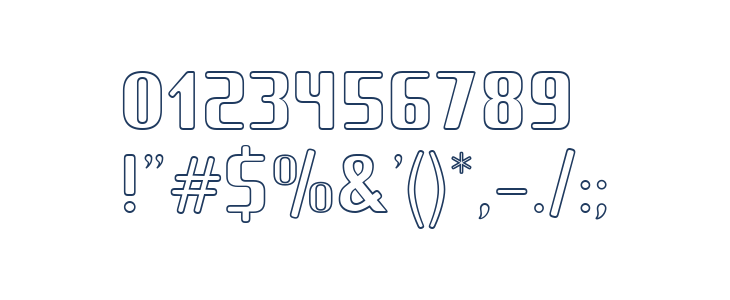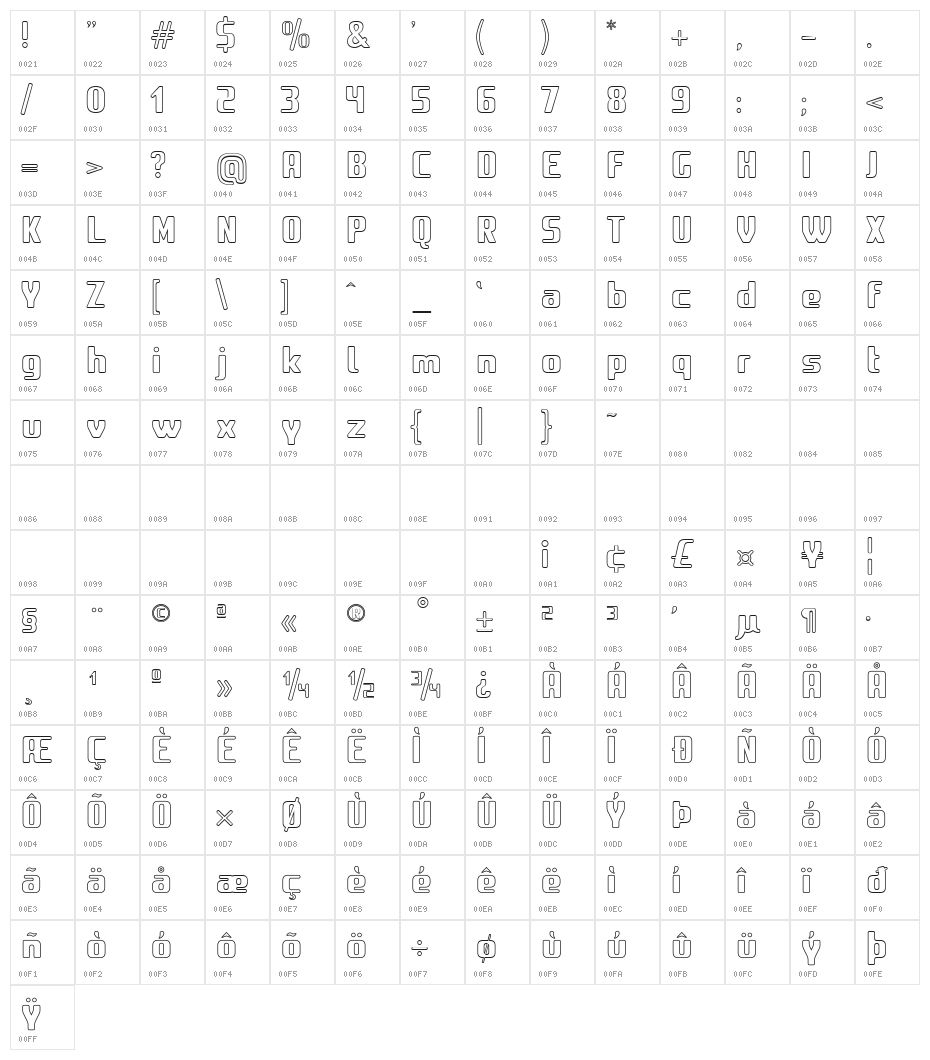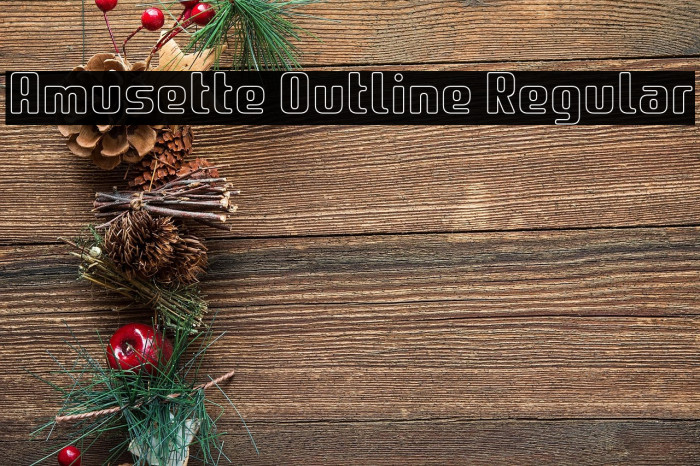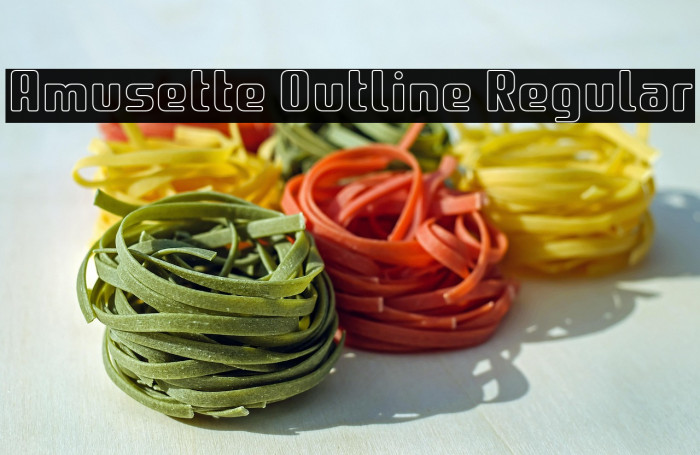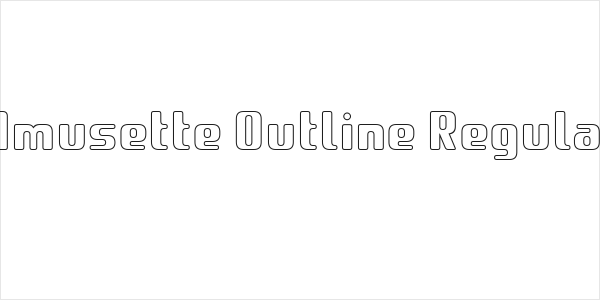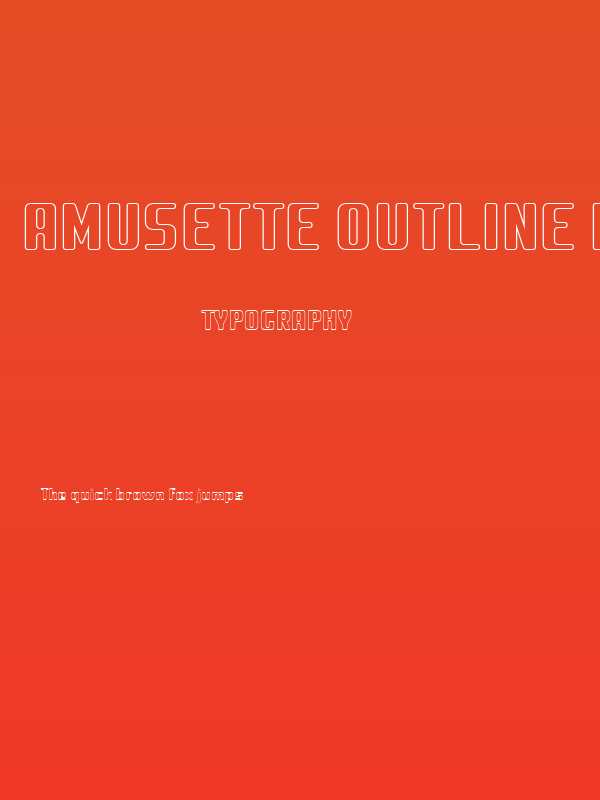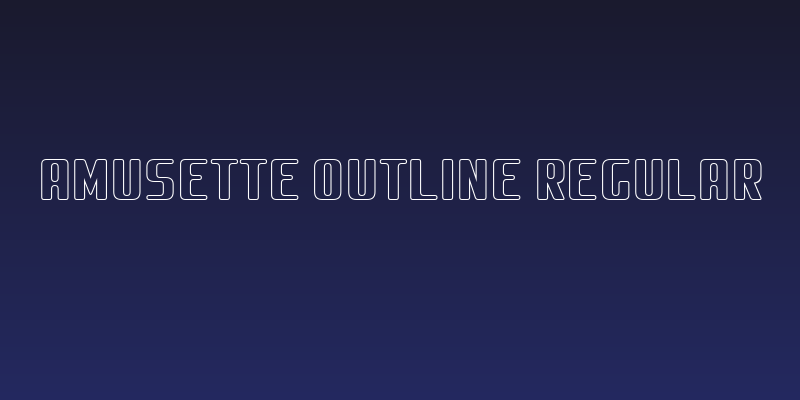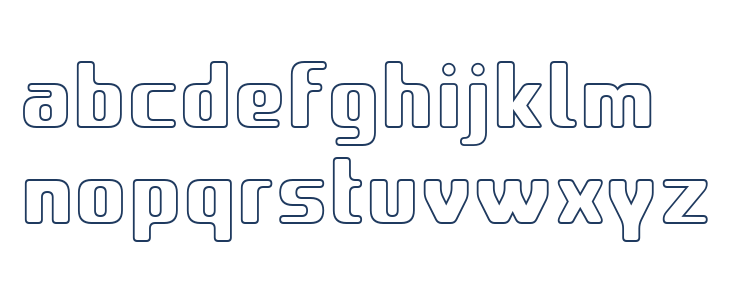
Amusette Outline Regular Font
Amusette Outline Regular Description
This font features a playful and modern outline style, characterized by its clean and geometric shapes. The uppercase and lowercase letters maintain a consistent height and width, giving it a uniform appearance. The numbers and special characters follow the same design principles, ensuring a cohesive look across all glyphs. The outline effect adds a unique touch, making it suitable for eye-catching designs. Its simplicity and clarity make it versatile for various applications, while the outline style provides a distinctive aesthetic.
| Proposed Projects | Ideal for posters, logos, headlines, and any design requiring a modern and playful touch. |